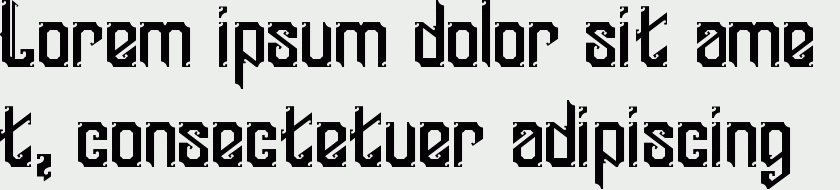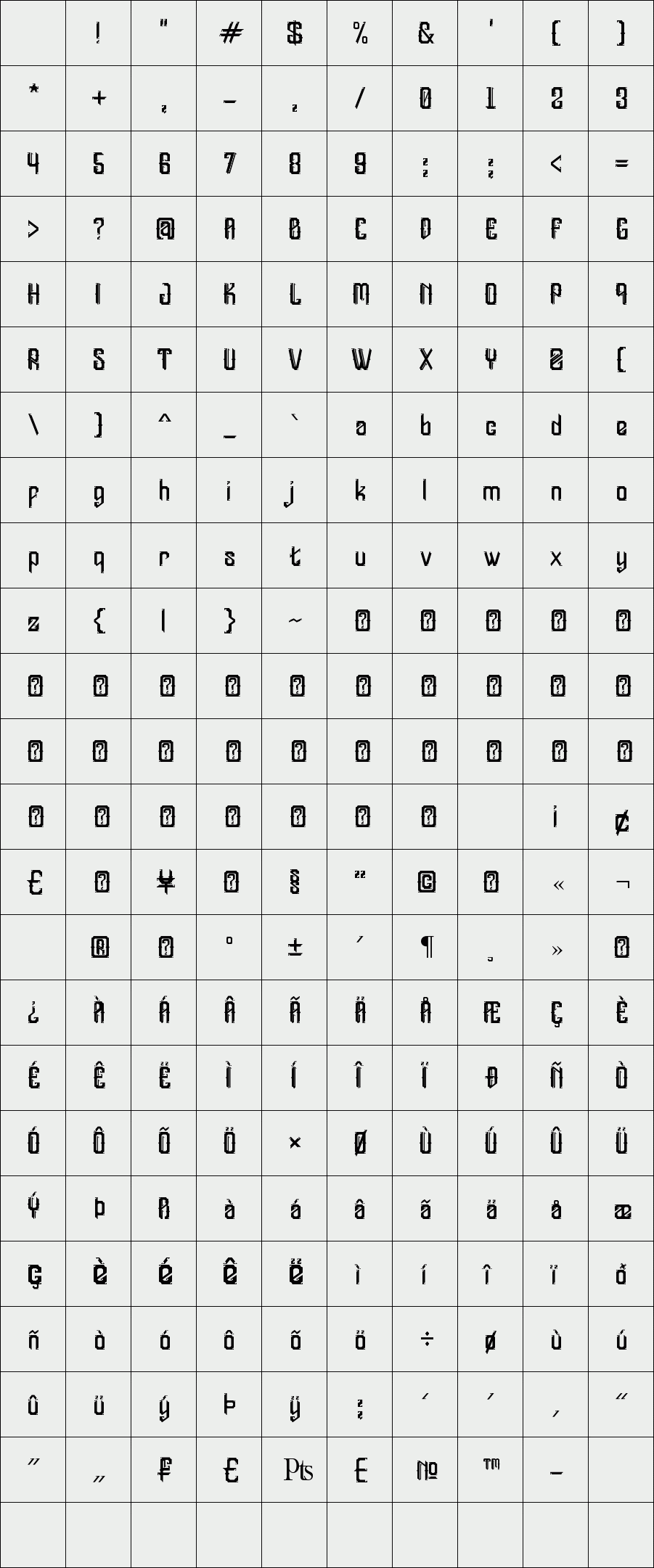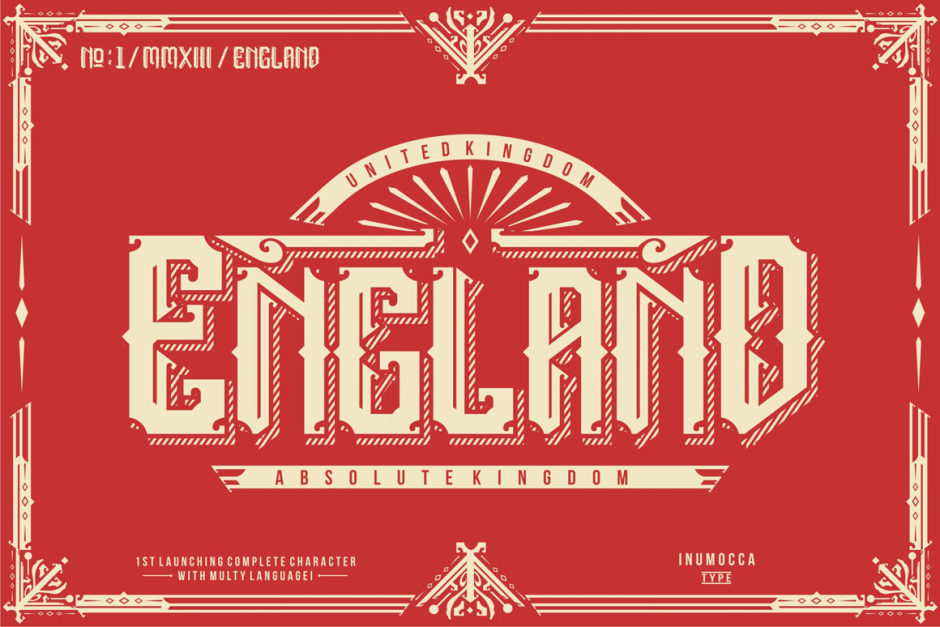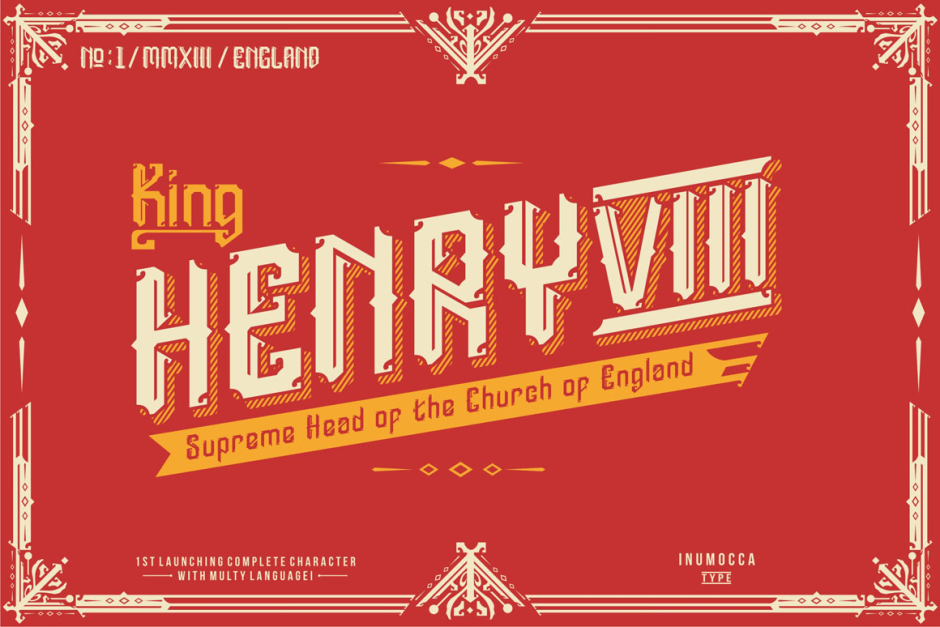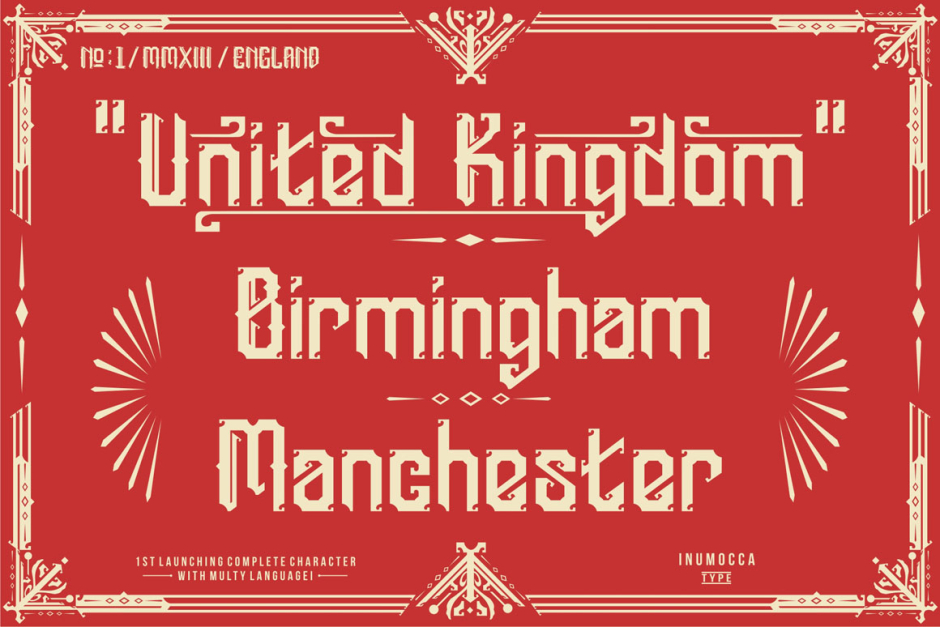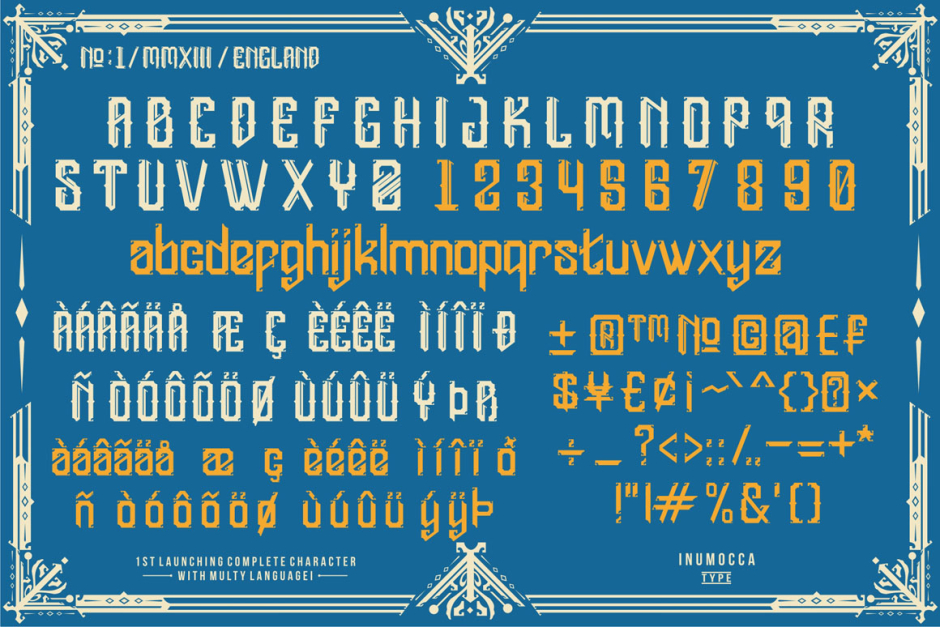
England
England Font was inspired from scroll letter kingdom on medieval age.
and i trying to explore this characterEnjoy
Available : UPPERCASE , lowercase, Numeric, symbol, Multi language ( TTF and OTF )
inumocca
Designer: inu mocca